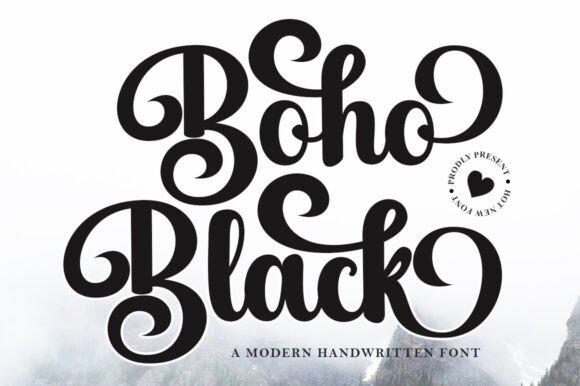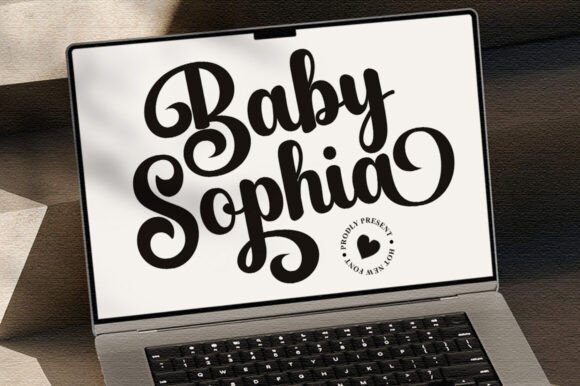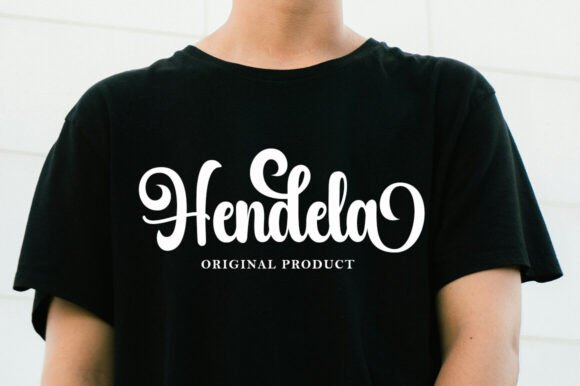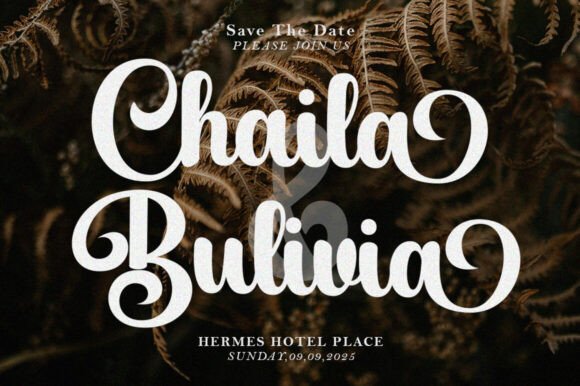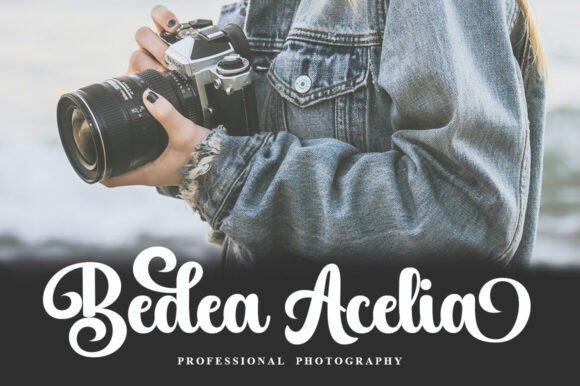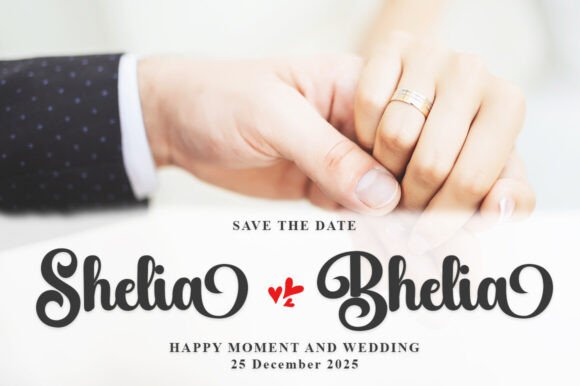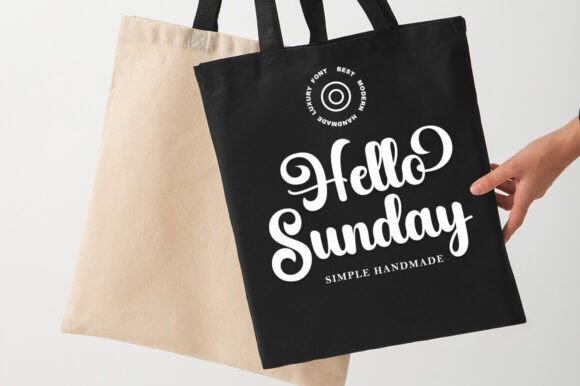
Boho Black Font
Boho Black is a font that exudes softness and elegance. With graceful strokes and a feminine touch, this font will elevate any design project to the highest level, be it branding, titles, wedding designs, invitations, signs, logos, labels, and more!